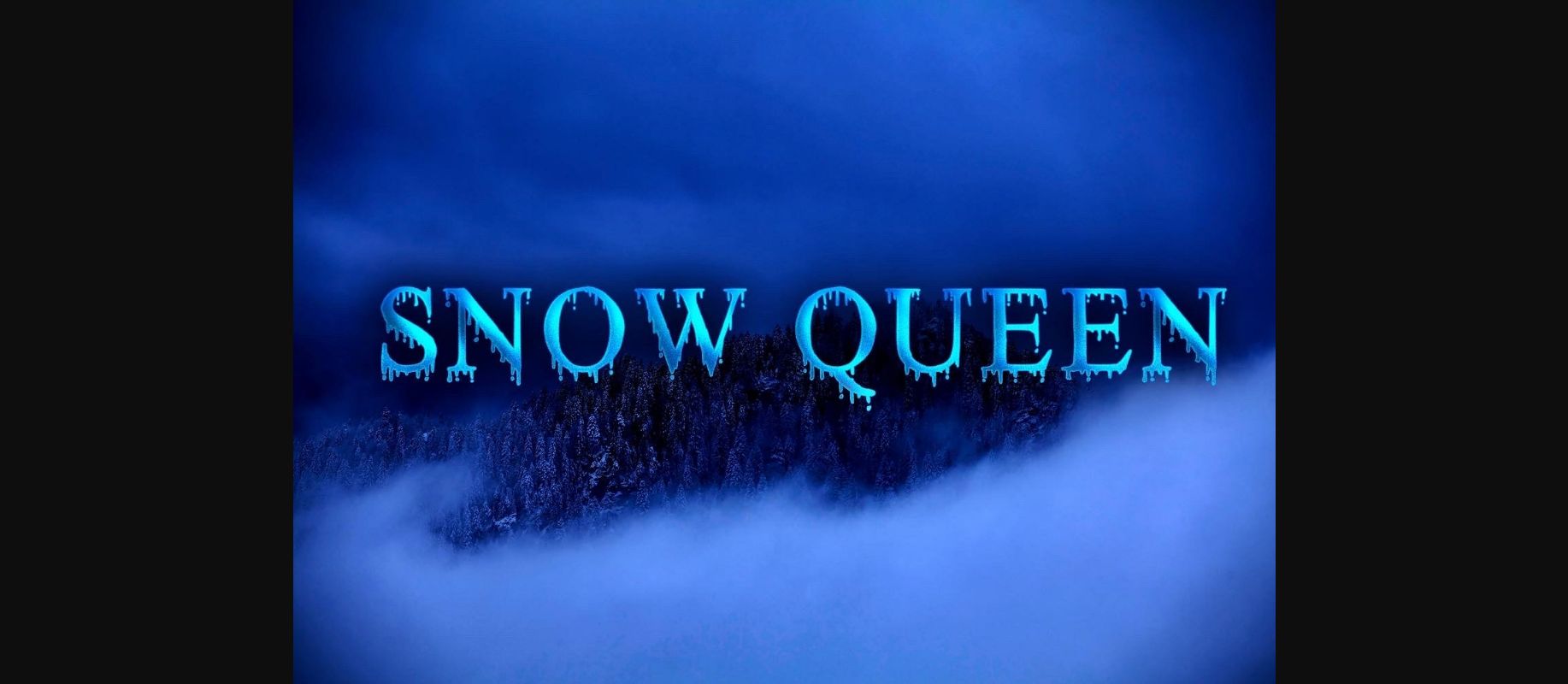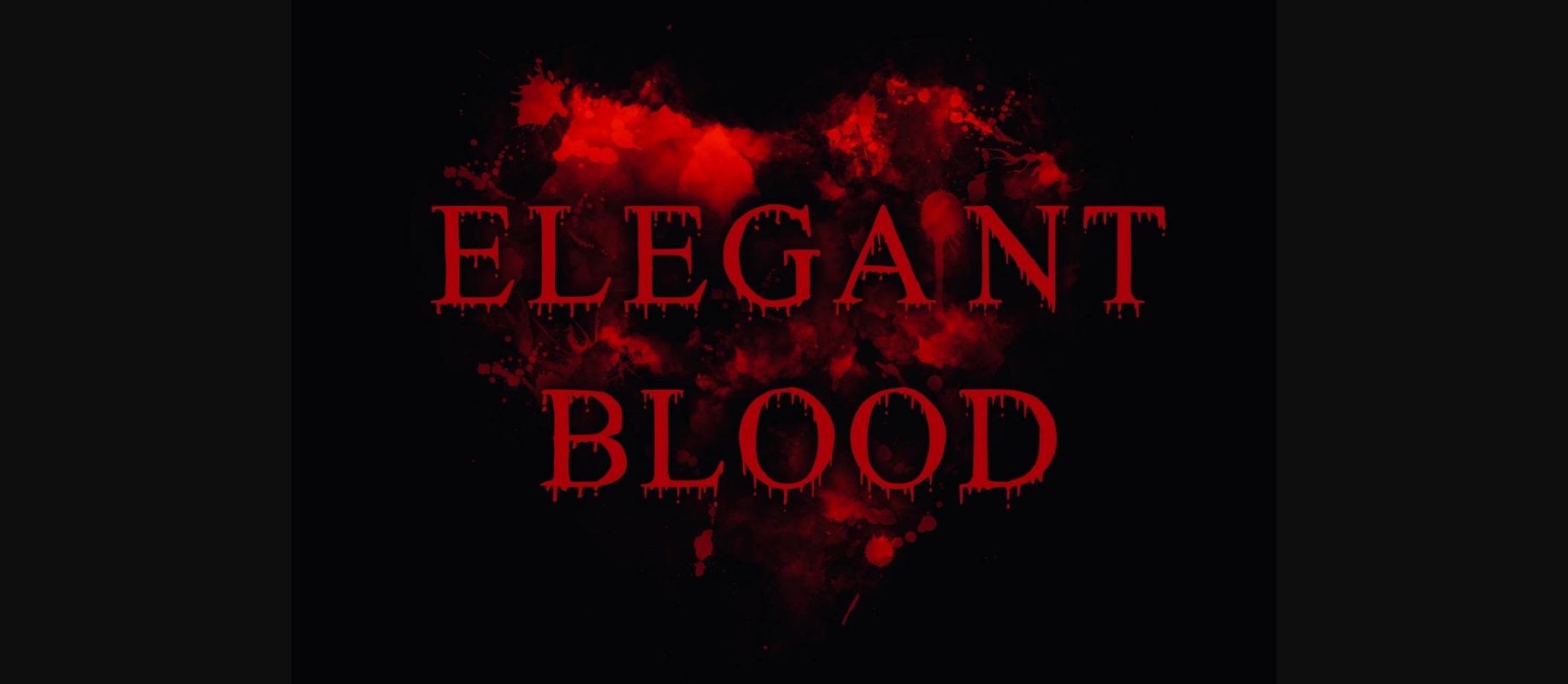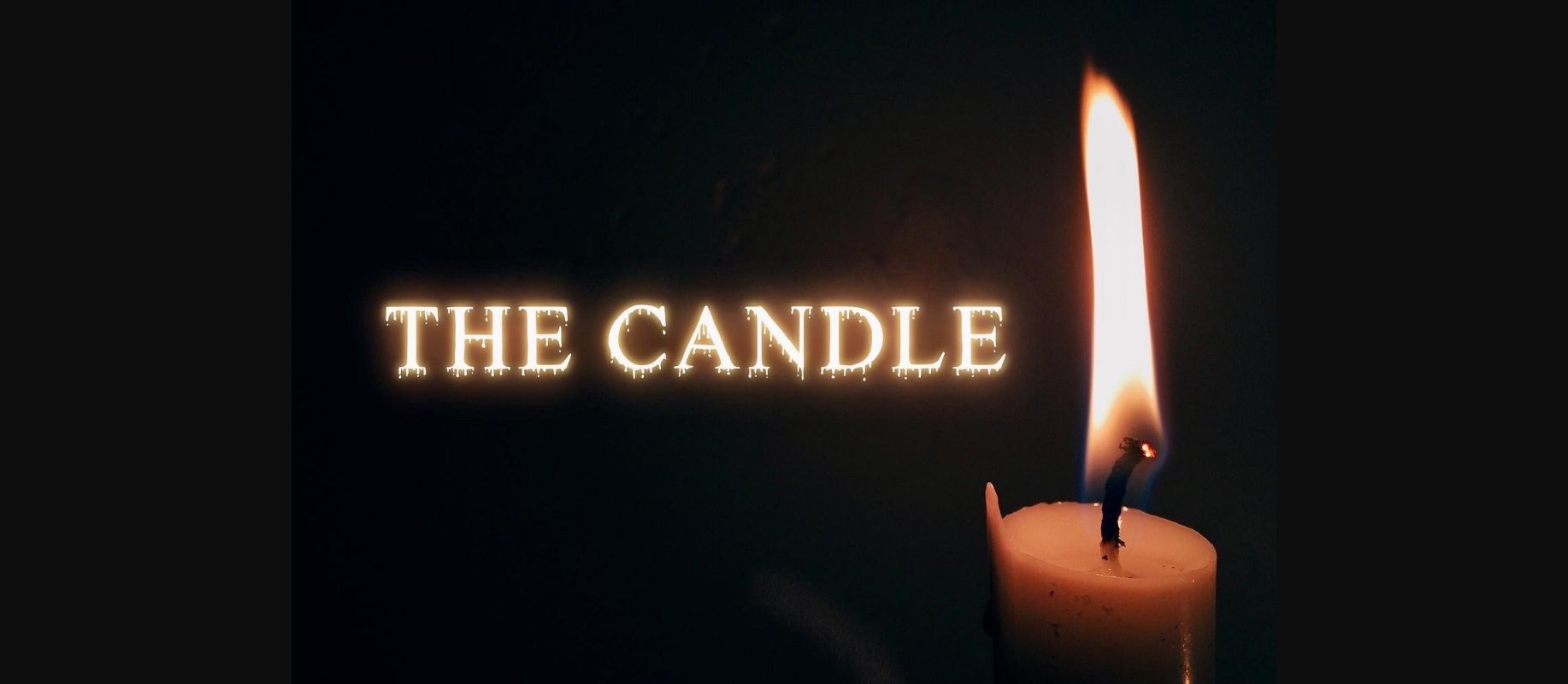
Snow Queen Font
About Snow Queen Font
Snow Queen is a horror looking and scary decorative font. It is perfectly suitable for any Halloween-related project or crafty idea! The only limit is your imagination.